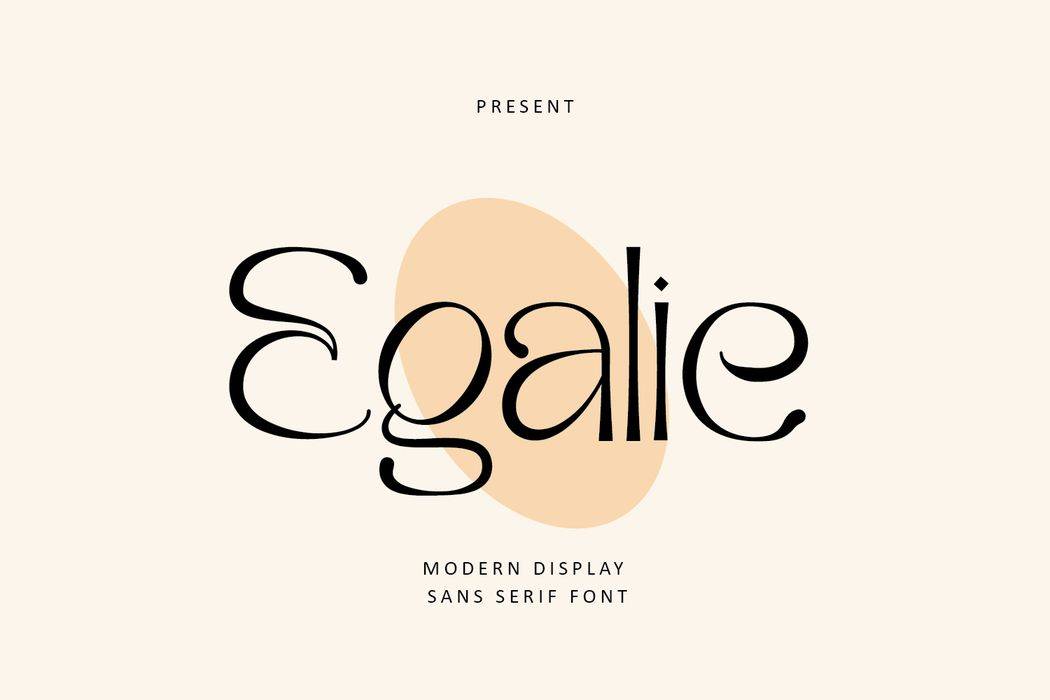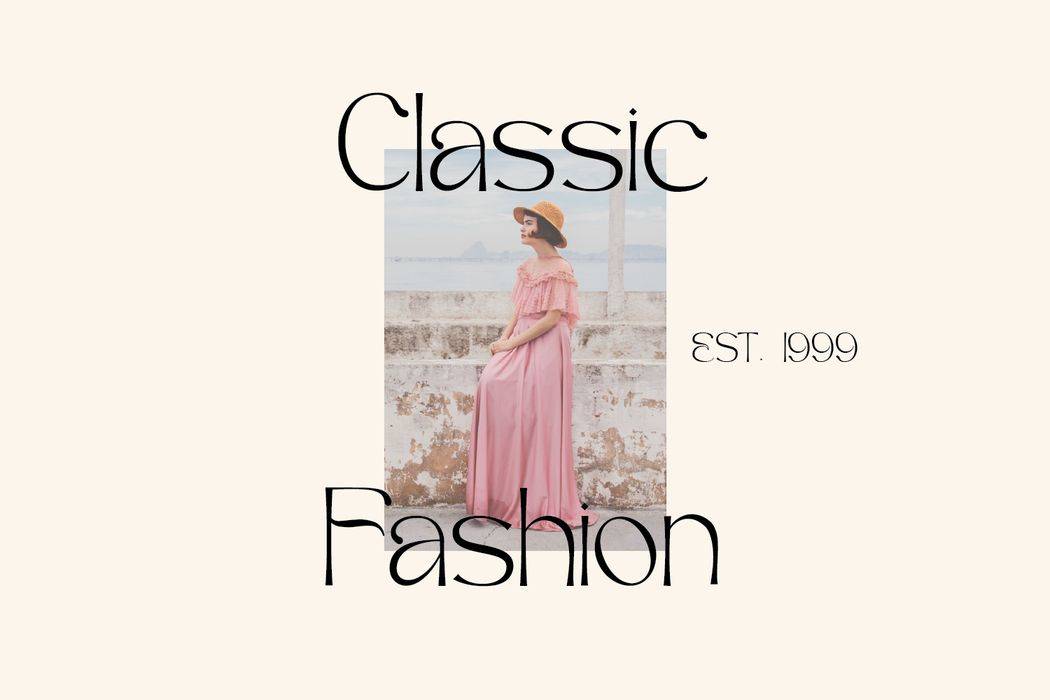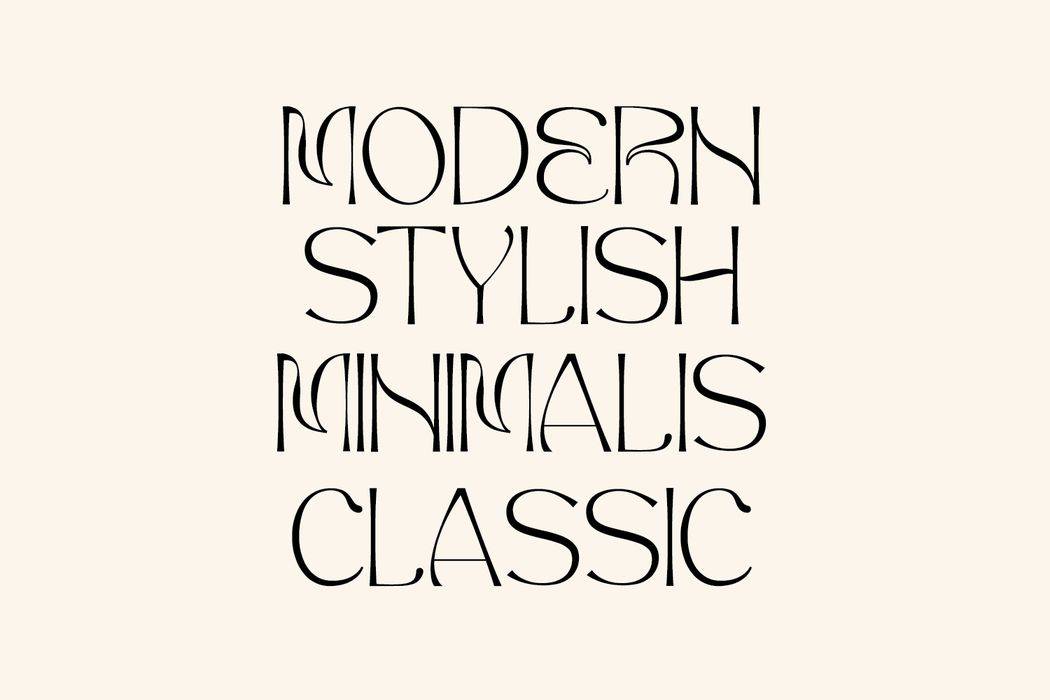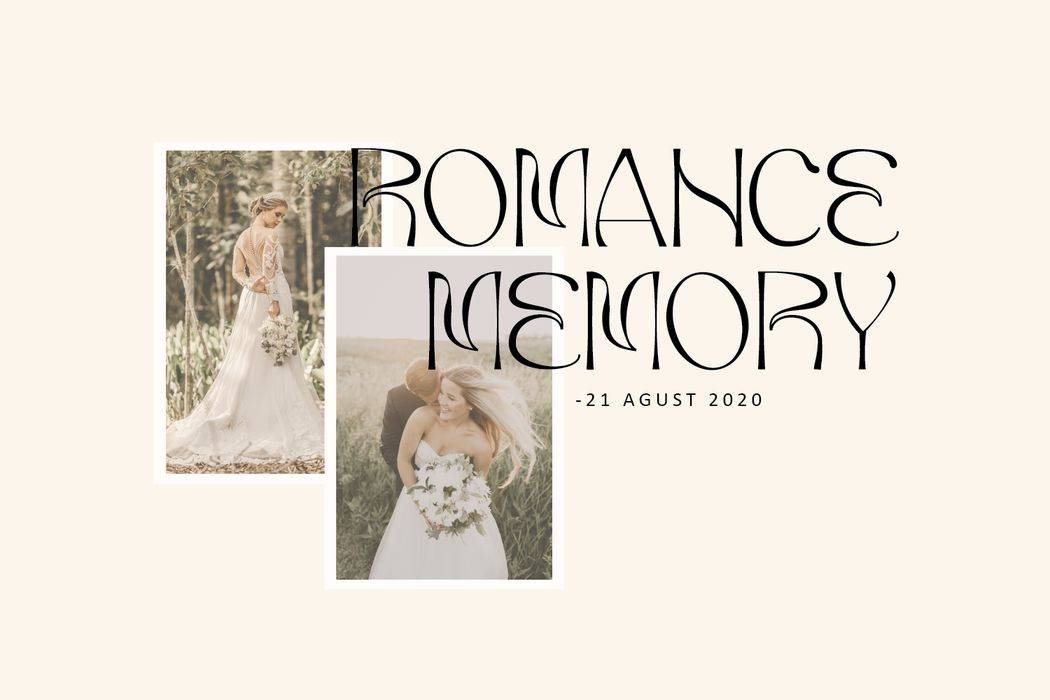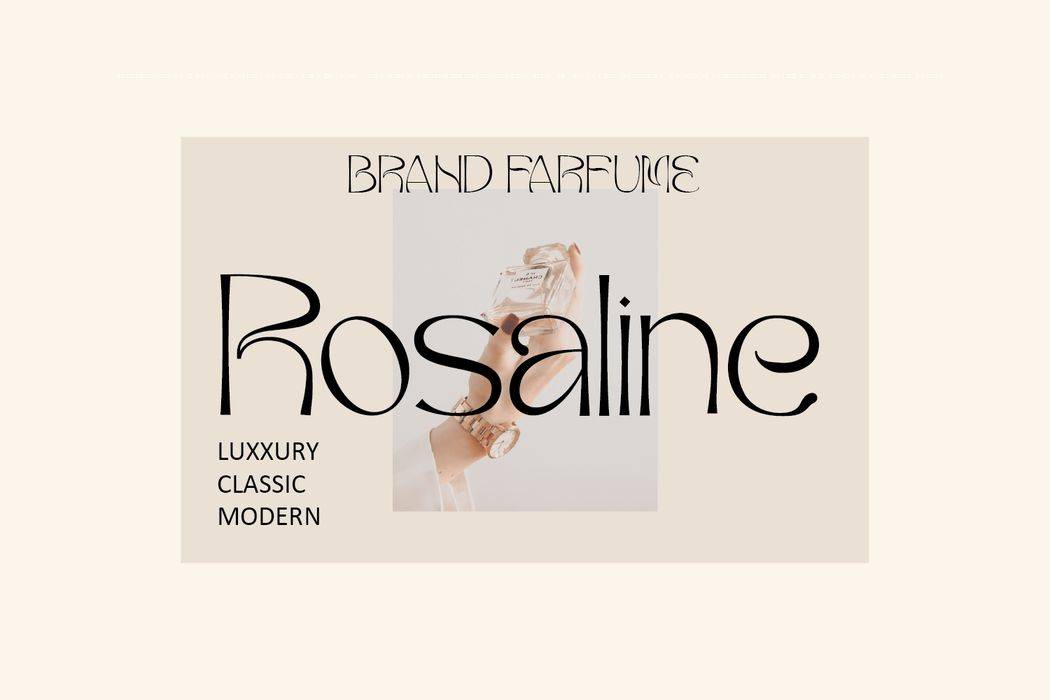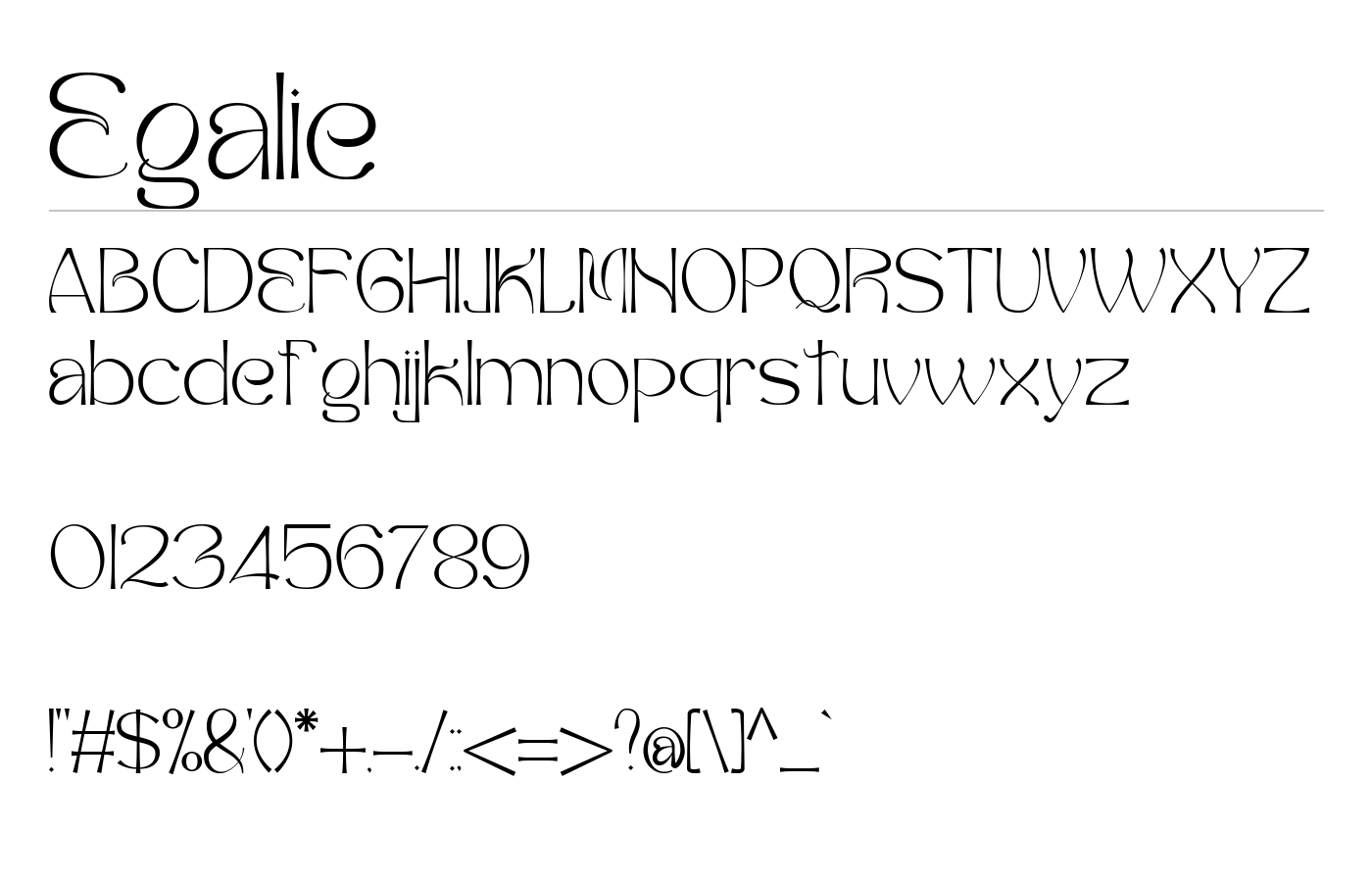
Egalie is an elegant serif font with a slender, delicate appearance and whimsical details that give it a modern, artistic flair. Its tall, narrow letterforms feature high contrast between thin and slightly thicker strokes, with unique decorative elements on characters adding personality without sacrificing readability. This font works beautifully for fashion branding, editorial headlines, and sophisticated packaging where a refined yet creative style is desired.
Egalie Font
About Egalie Font
| Font family | Egalie Font |
| Designer | Muksal Craeative. 2021 |